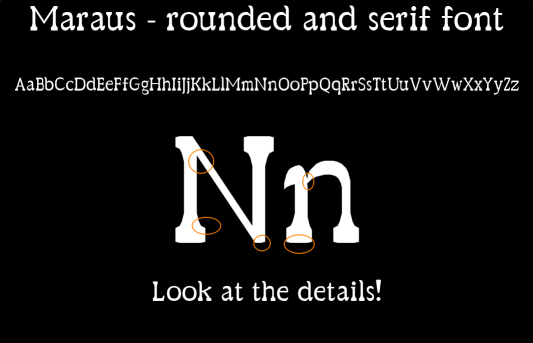
This looks very nice! Excellent Work! I'd recommend moving the cedilla to the left so the spacing is better to the left of it... (if you set the width, adjust that too)
I'm not sure about the form of the circumflex so you can see two variants of the letter "Â".
@Se7enty-Se7en: Thanks for the advice at the cedilla.
@mgUdit No Problem! Can you move the cedilla by itself as well...
@Se7enty-Se7en Now the Cedilla (¸) should look well…
Added the small sharp s.